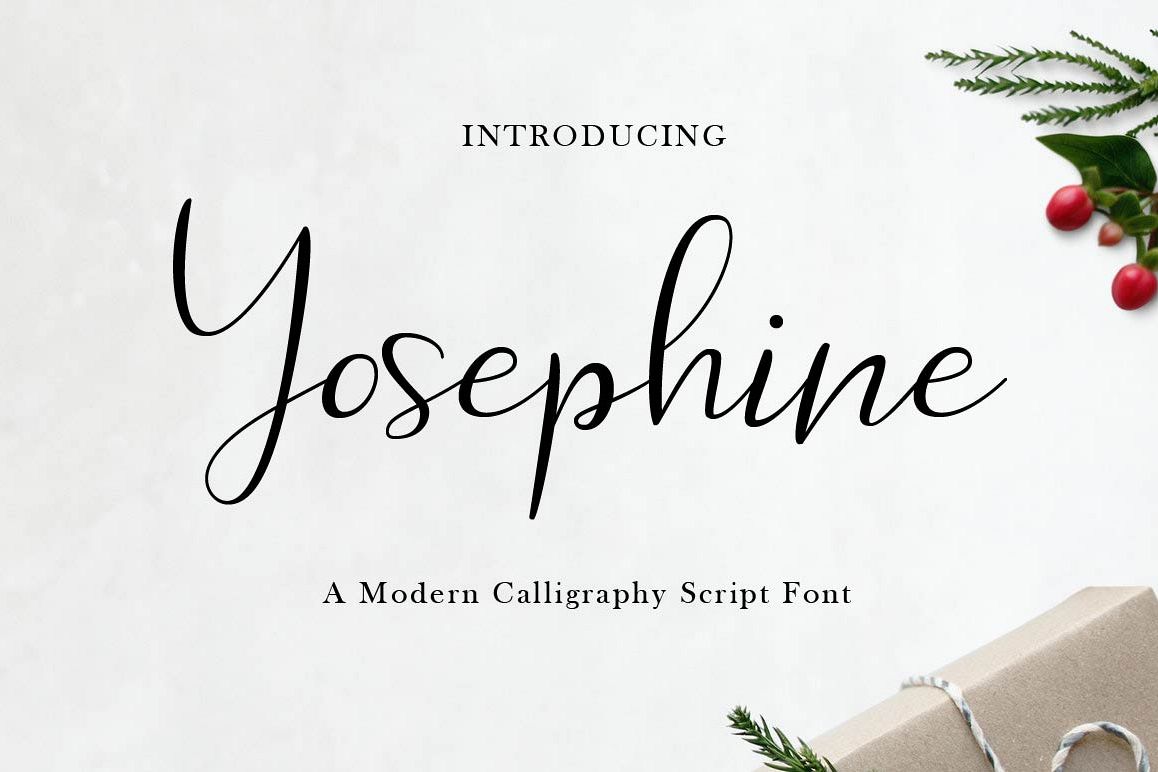
Yosephine Script
Yosephine is a modern calligraphy script font. This font is perfect for many project like wedding invitation, poster, greeting cards, quotes, branding, logo, T-shirt, and many more.
Yosephine have more than 200 glyphs. Include some international language, swash alternate, and some ligatures that can used on Open Type features. You need a program that supports Open Type features such as Adobe Illustrator CS, Adobe Indesign & CorelDraw X6-X7, Microsoft Word 2010 or later versions.